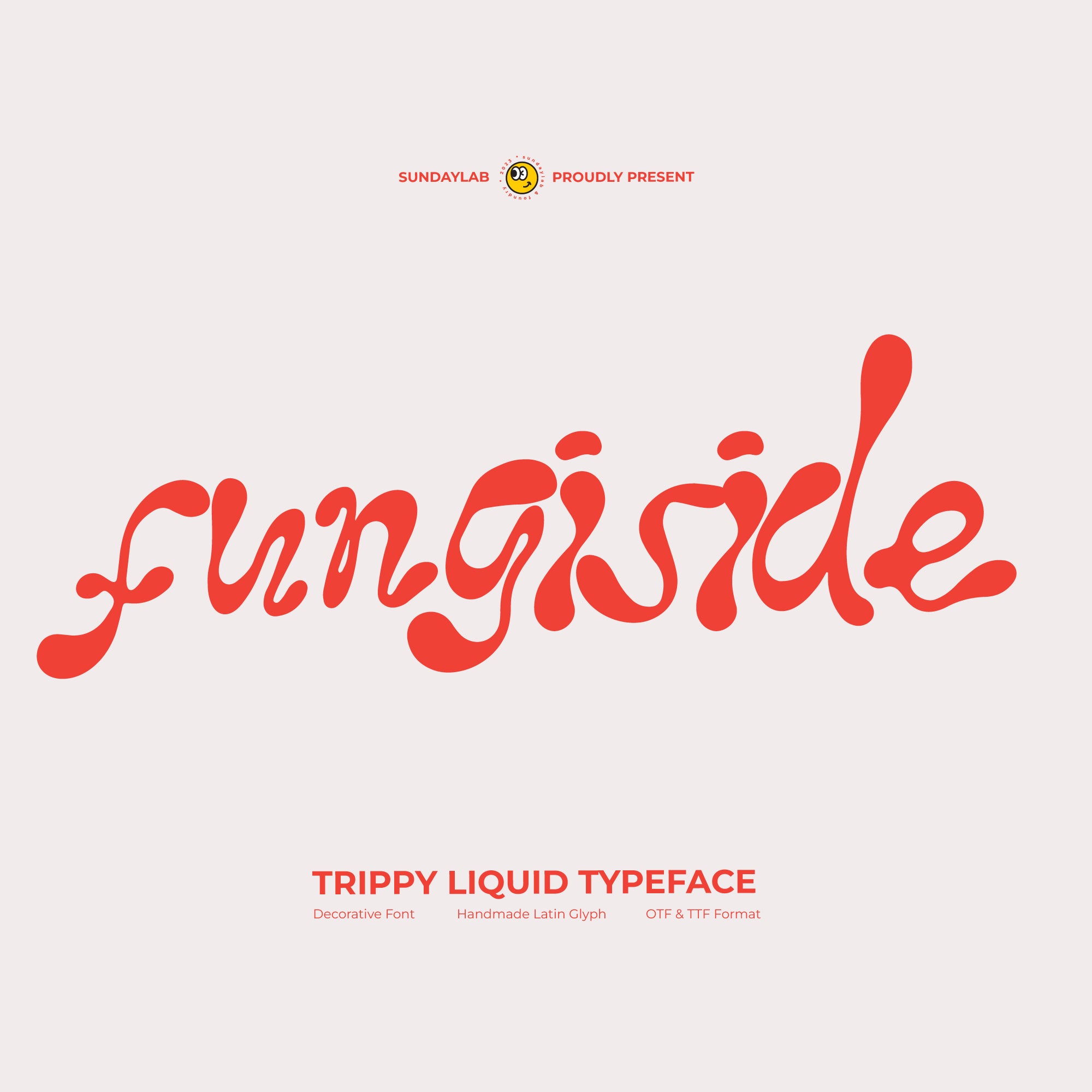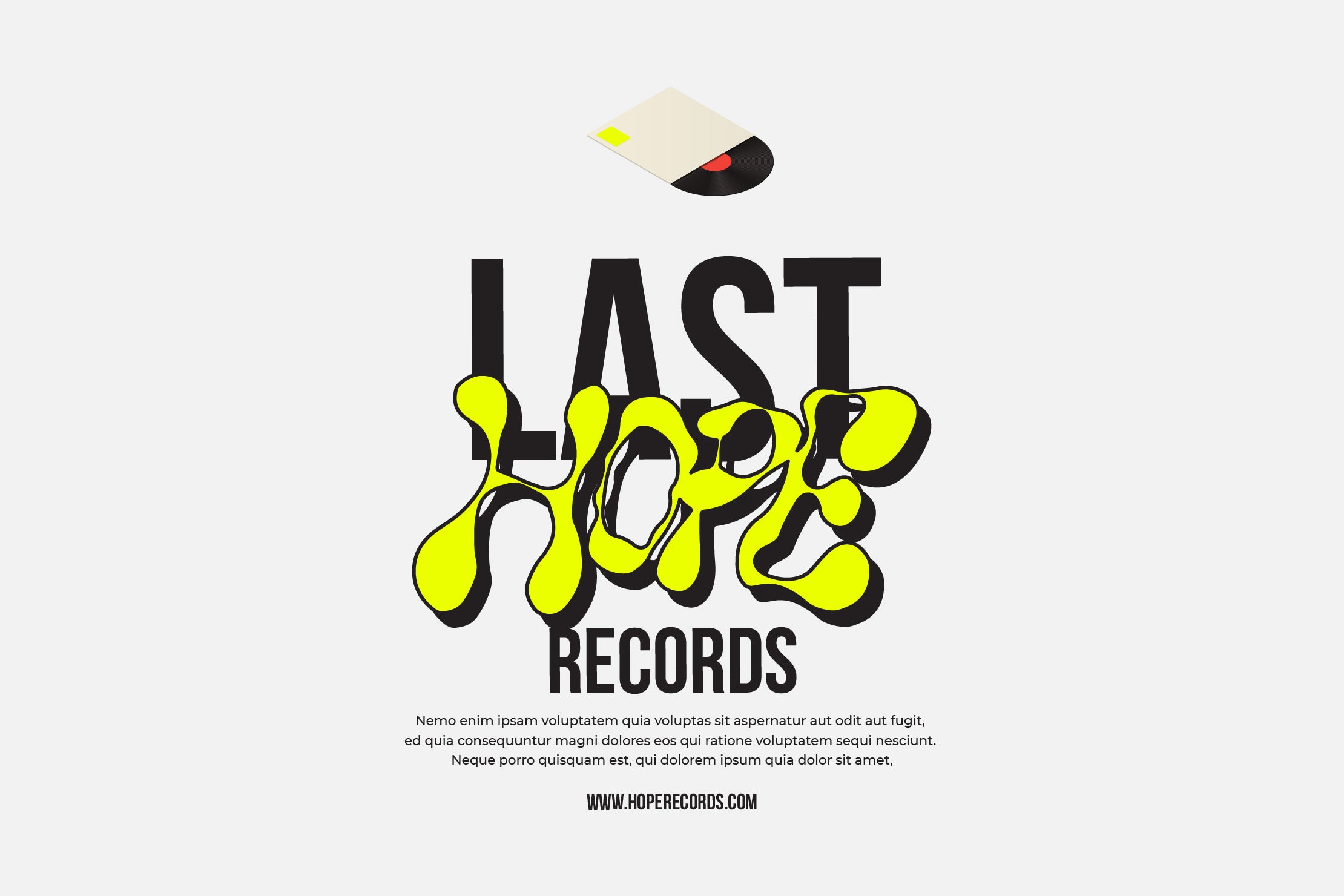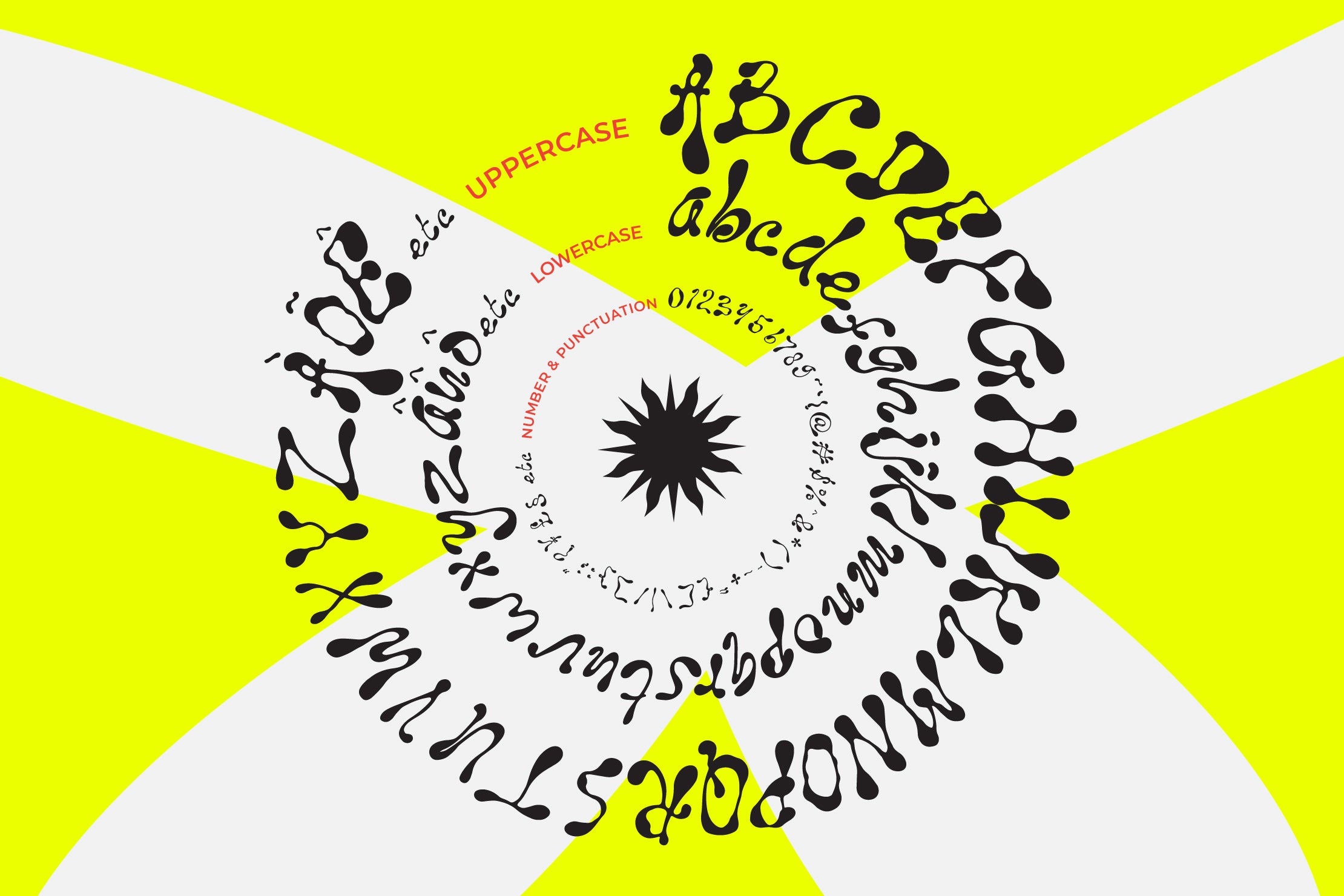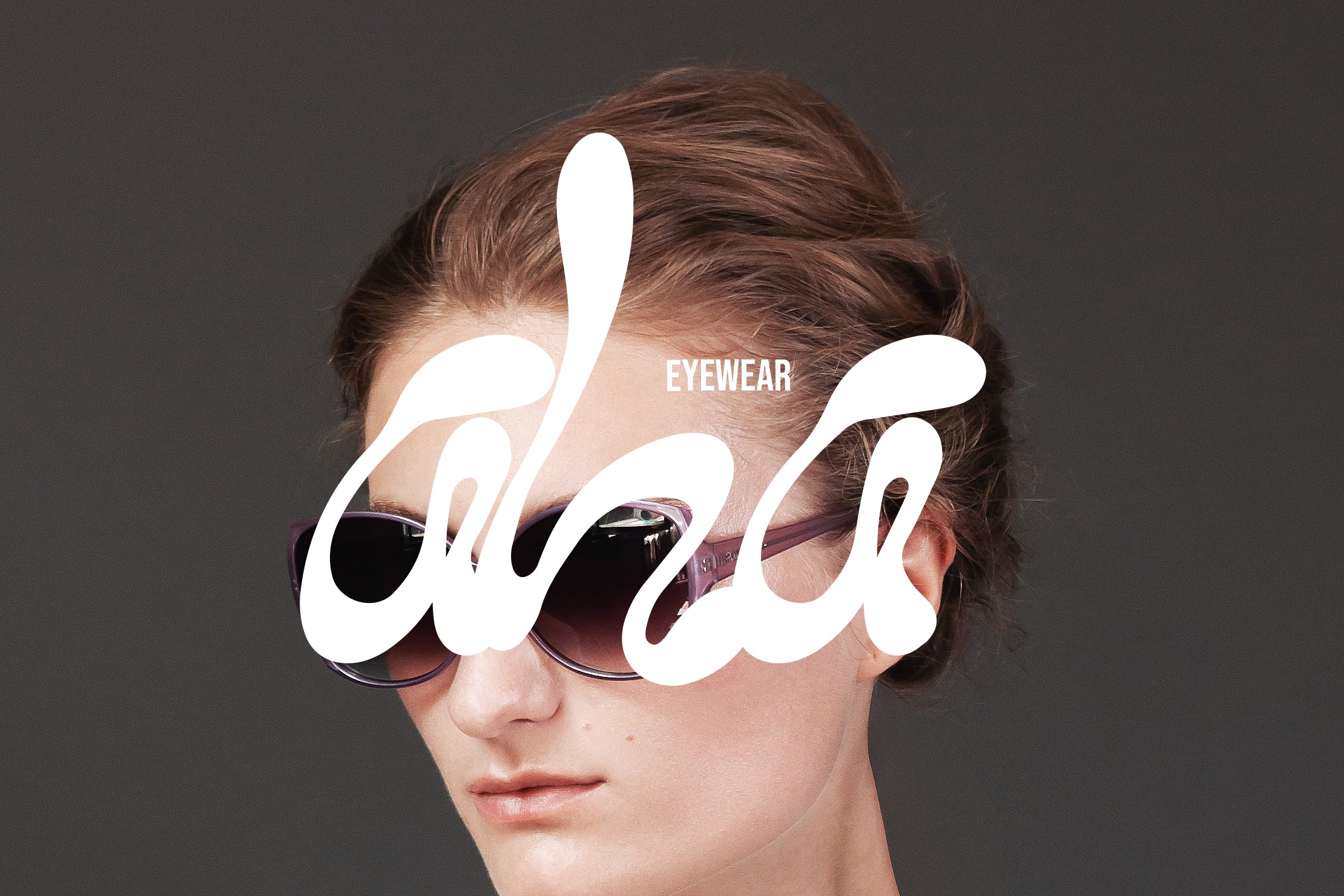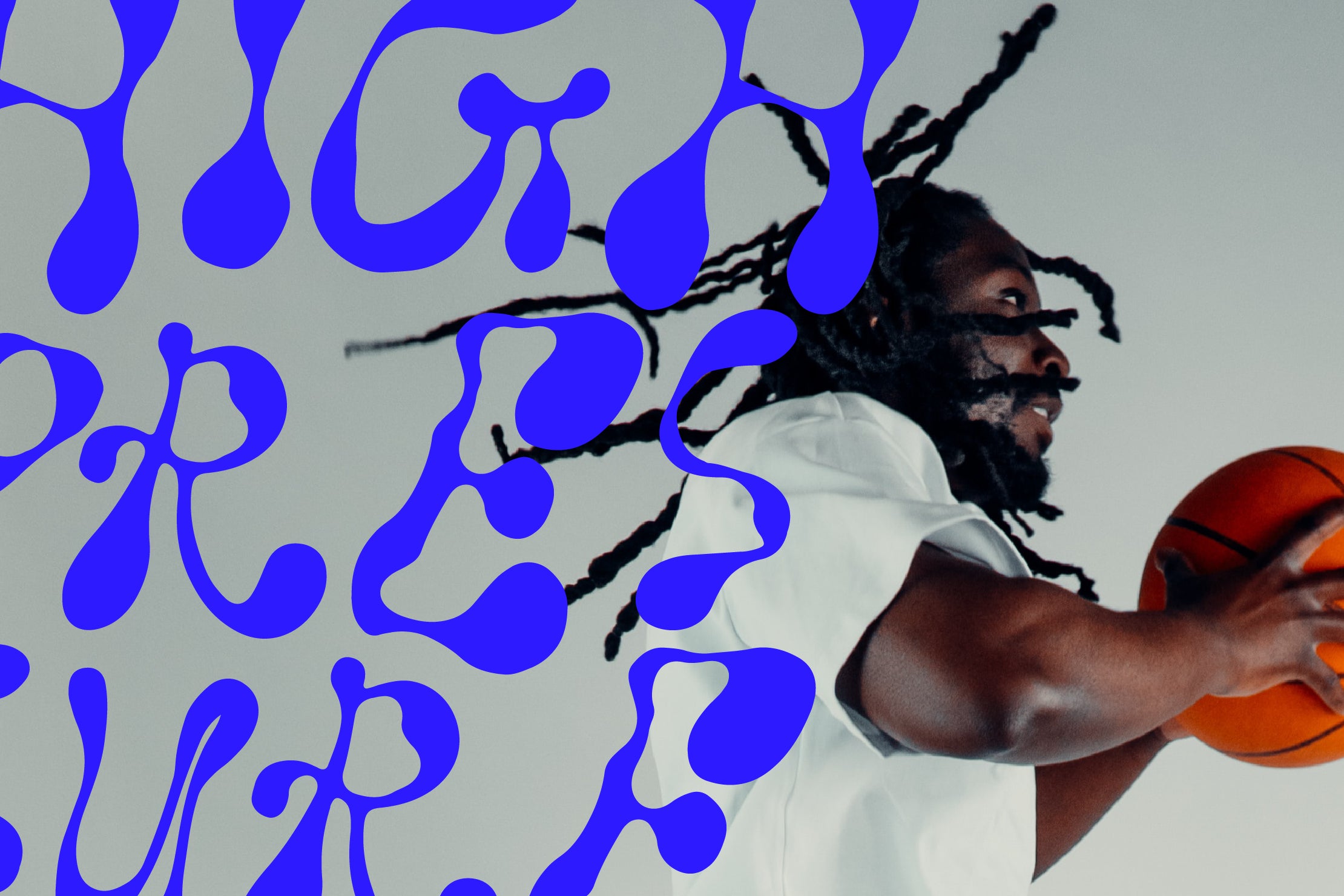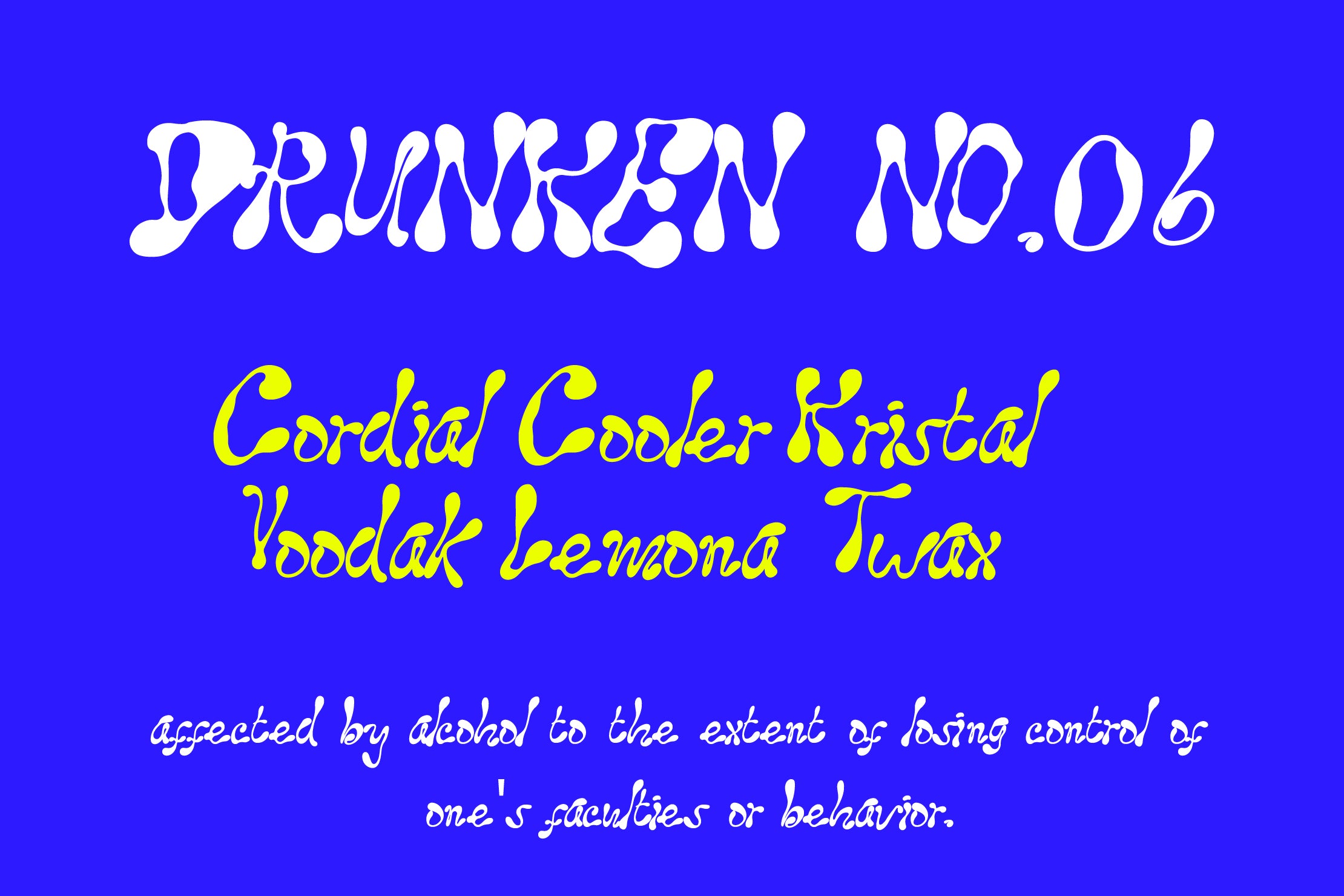
Fungiside Typeface
Fungiside Typeface is an experimental decorative font featuring fluid, distorted, and organic letterforms inspired by psychedelic graphics, underground music culture, and retro experimental typography. Its unconventional shapes and flowing curves create an expressive visual personality that works especially well for bold headlines, posters, album covers, music artwork, branding, fashion graphics, festivals, editorial layouts, and other creative projects that need a distinctive psychedelic feel.
The typeface includes uppercase, lowercase, numbers, and punctuation, making it flexible for both display typography and expressive compositions. Available in OTF and TTF formats.
Fungiside Typeface is an experimental decorative font featuring fluid, distorted, and organic letterforms inspired by psychedelic graphics and retro typography. It includes uppercase, lowercase, numbers, and punctuation, and is available in both OTF and TTF formats.